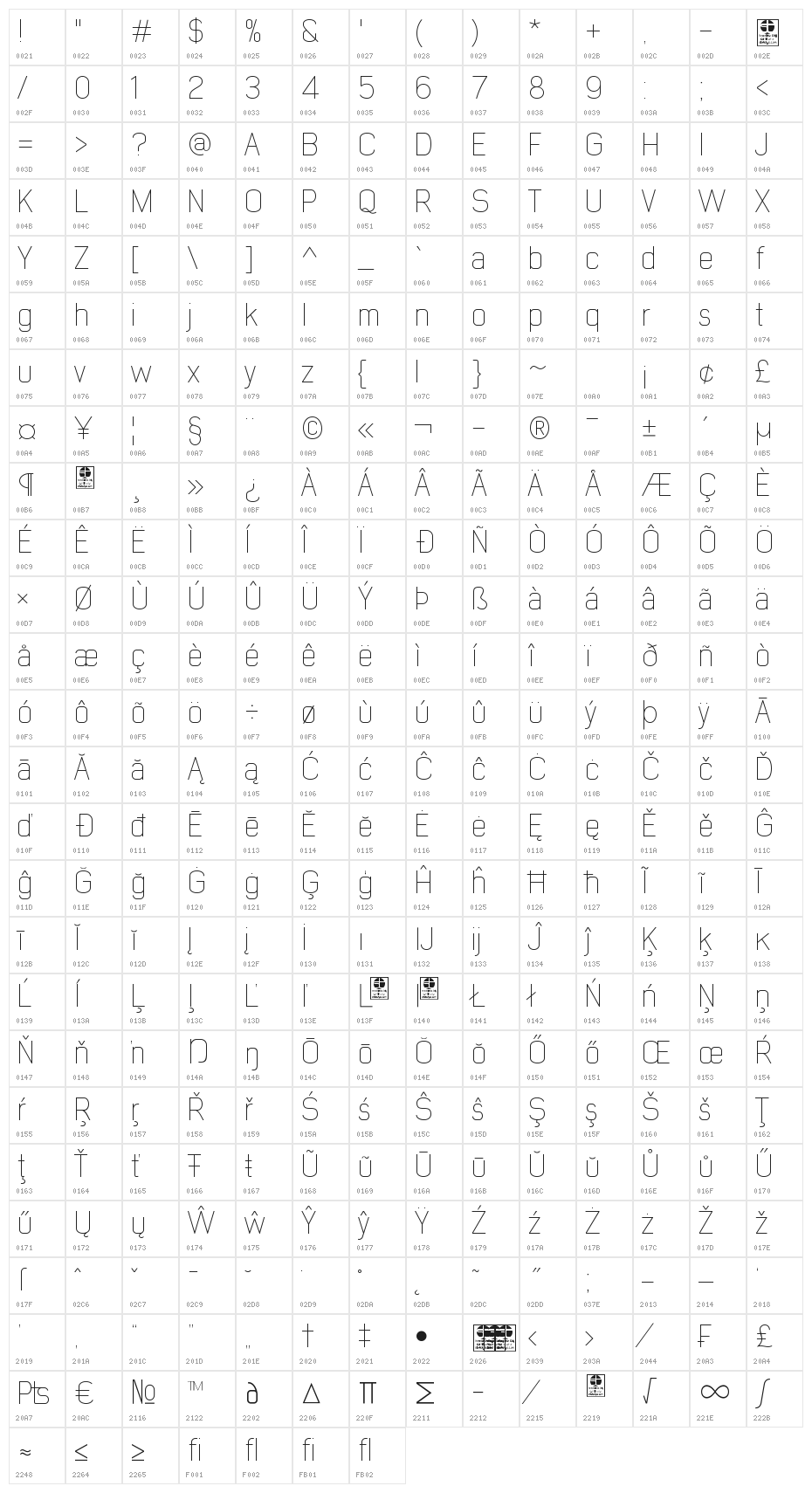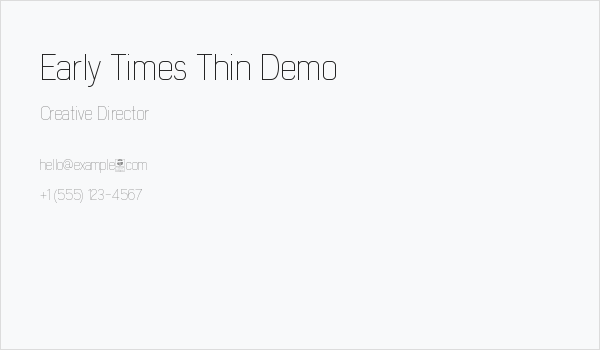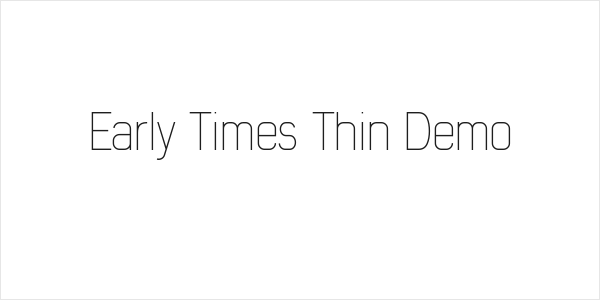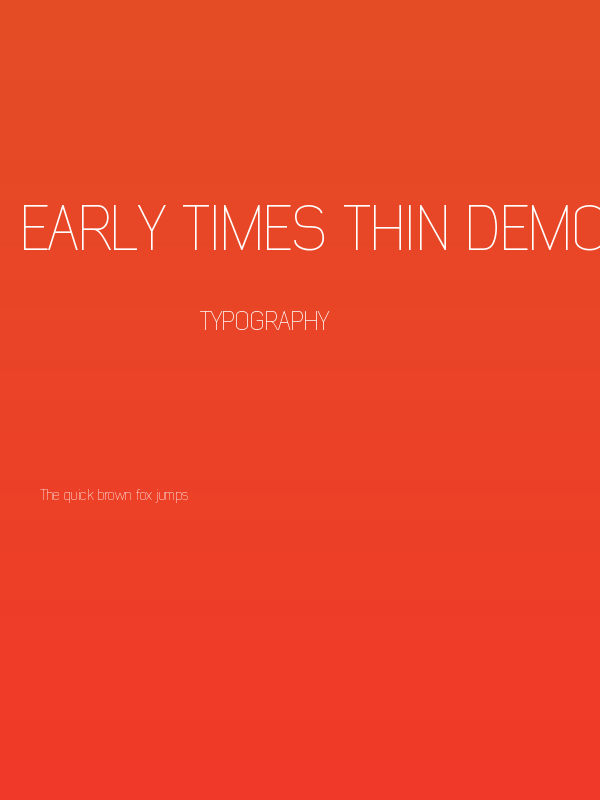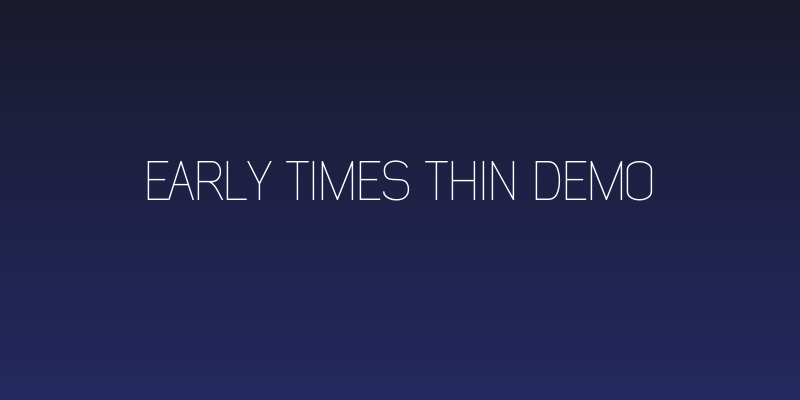
Early Times Thin Demo Font
Early Times Thin Demo Description
This font features a sleek, modern design with thin, uniform strokes that create a clean and minimalist appearance. The characters are evenly spaced, providing a balanced and harmonious look. The uppercase and lowercase letters maintain a consistent style, with rounded edges and smooth curves that enhance readability. The numerals and special characters are designed to match the overall aesthetic, making this font versatile for various applications. Its simplicity and elegance make it suitable for contemporary design projects.